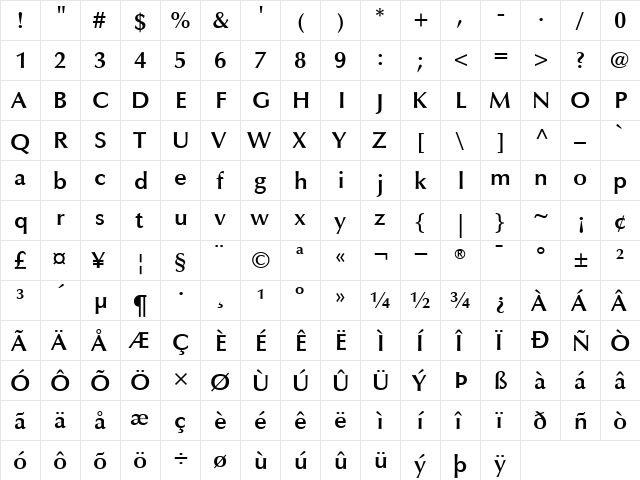
OptimaBold-Demi Demi
Design Context for OptimaBold-Demi Typeface
OptimaBold-Demi is a composed and adaptable typeface that performs quietly and consistently across a wide range of design contexts. The heavy weight commands attention and anchors typographic hierarchies.